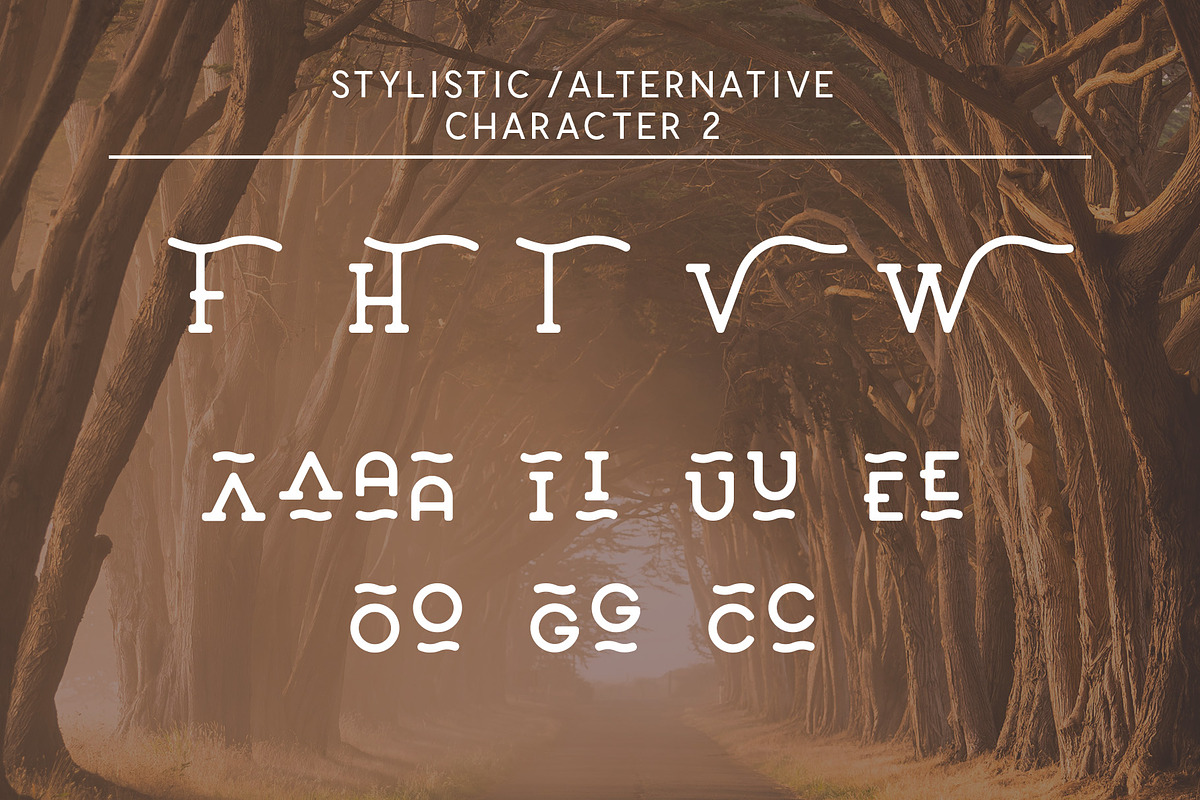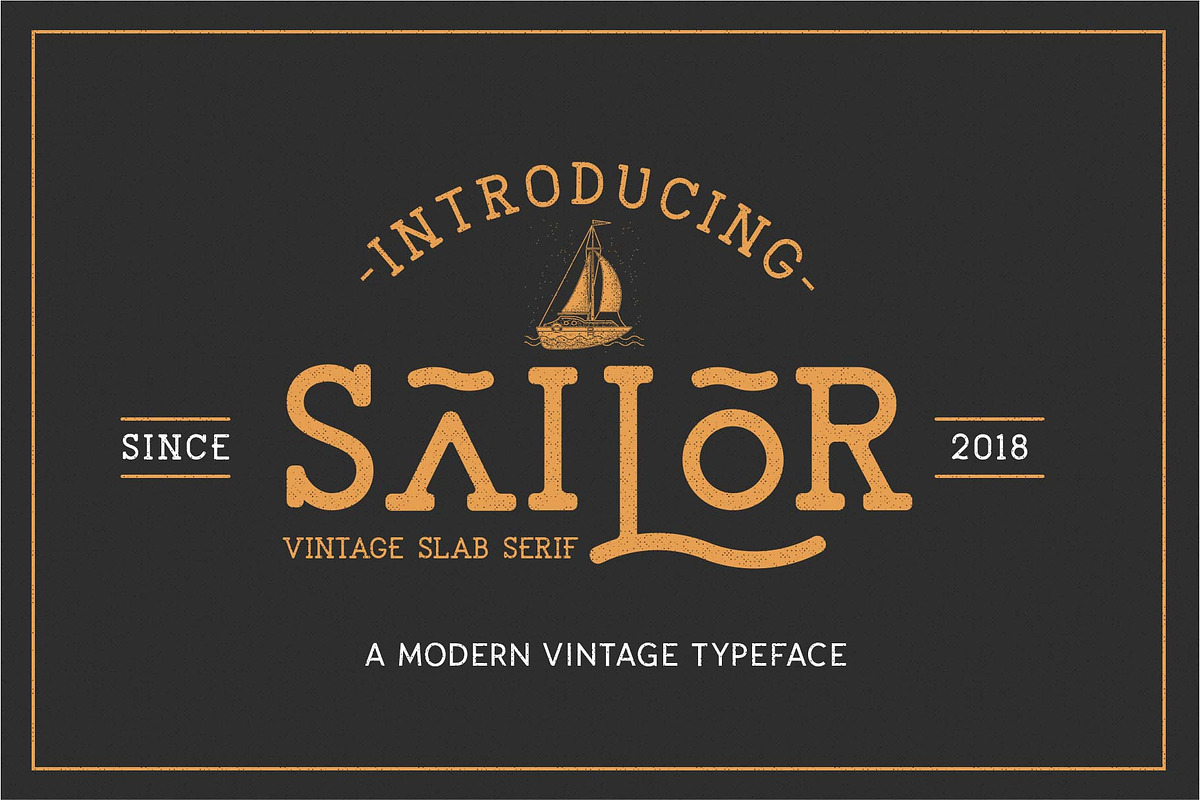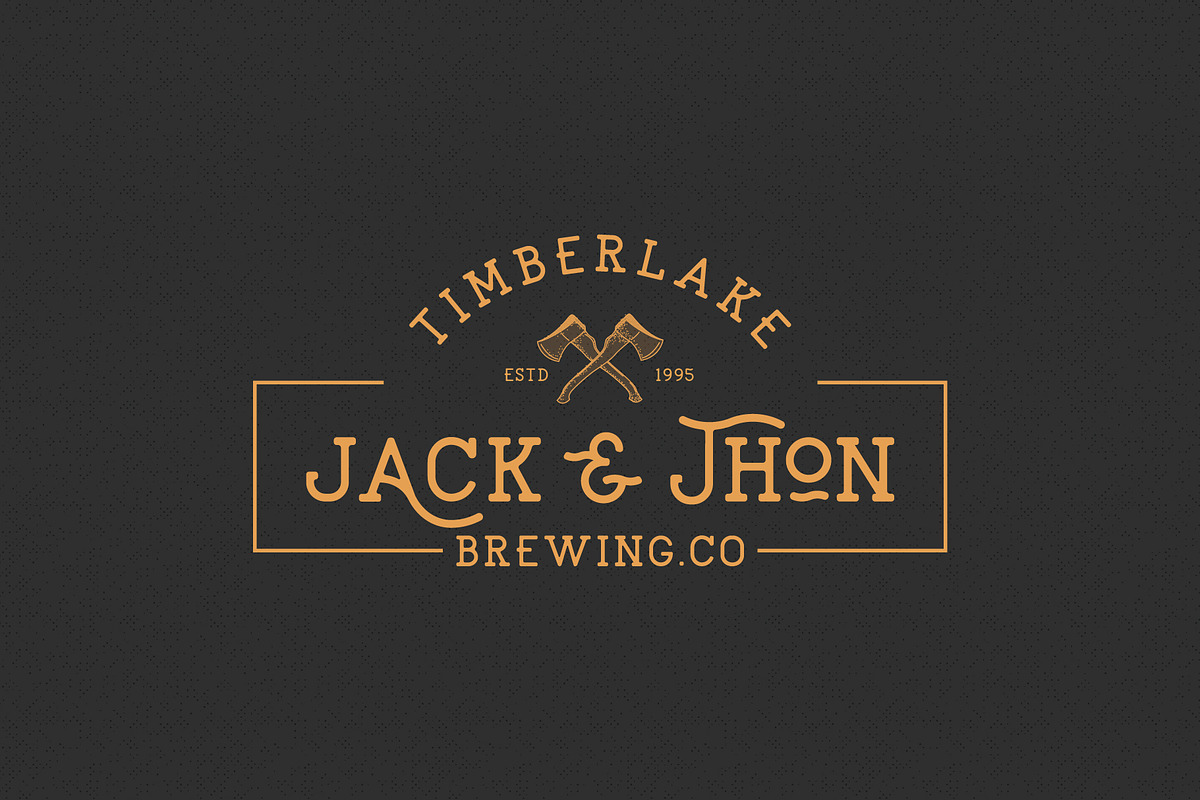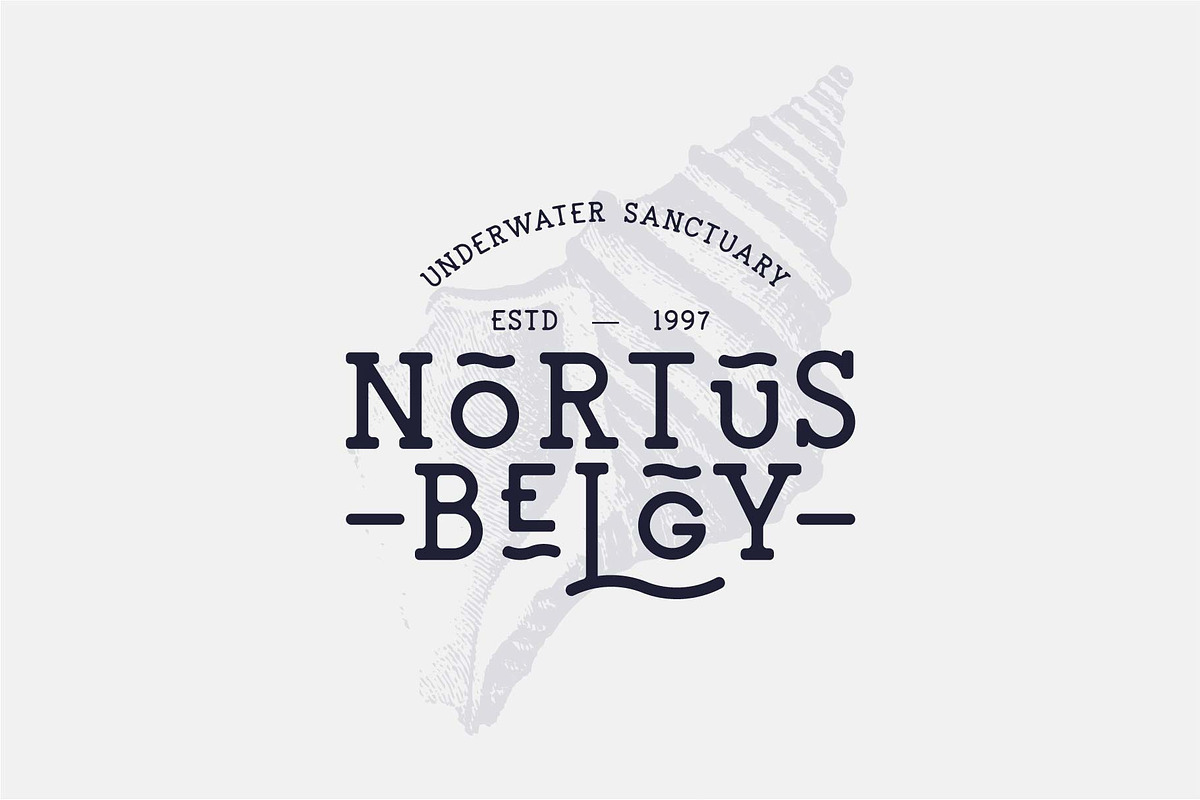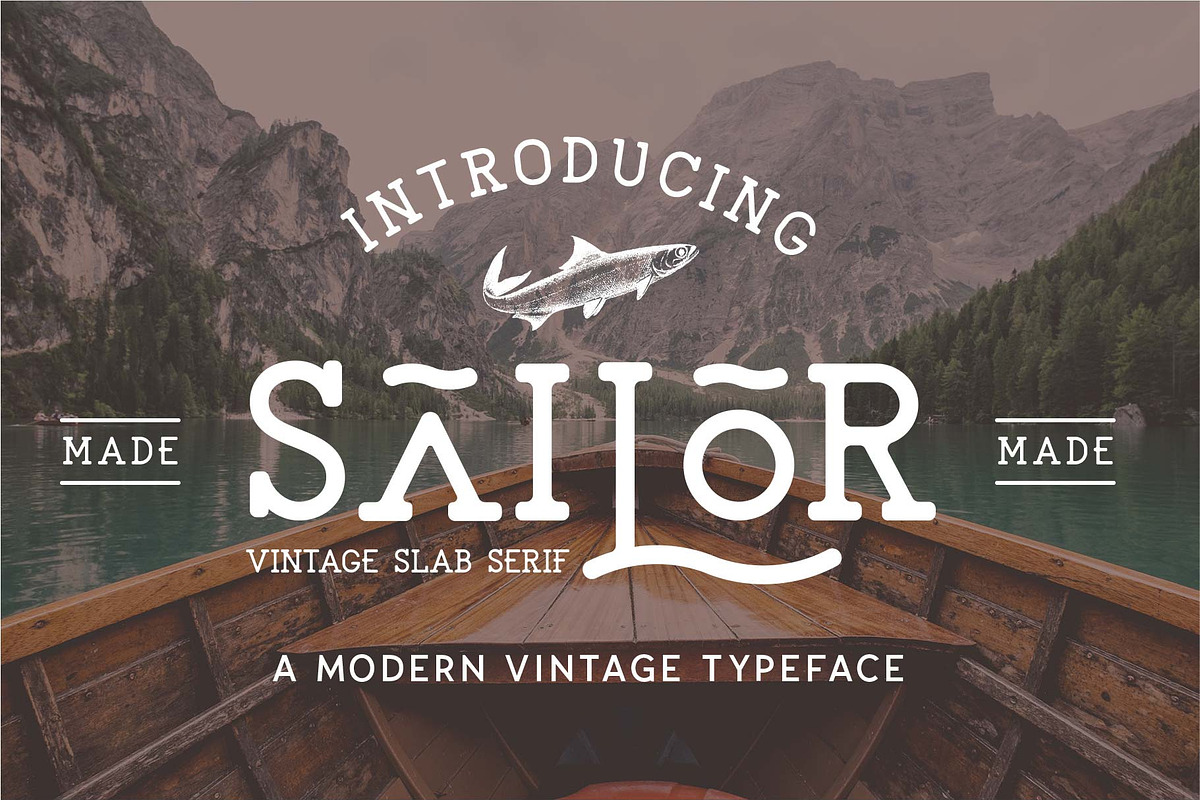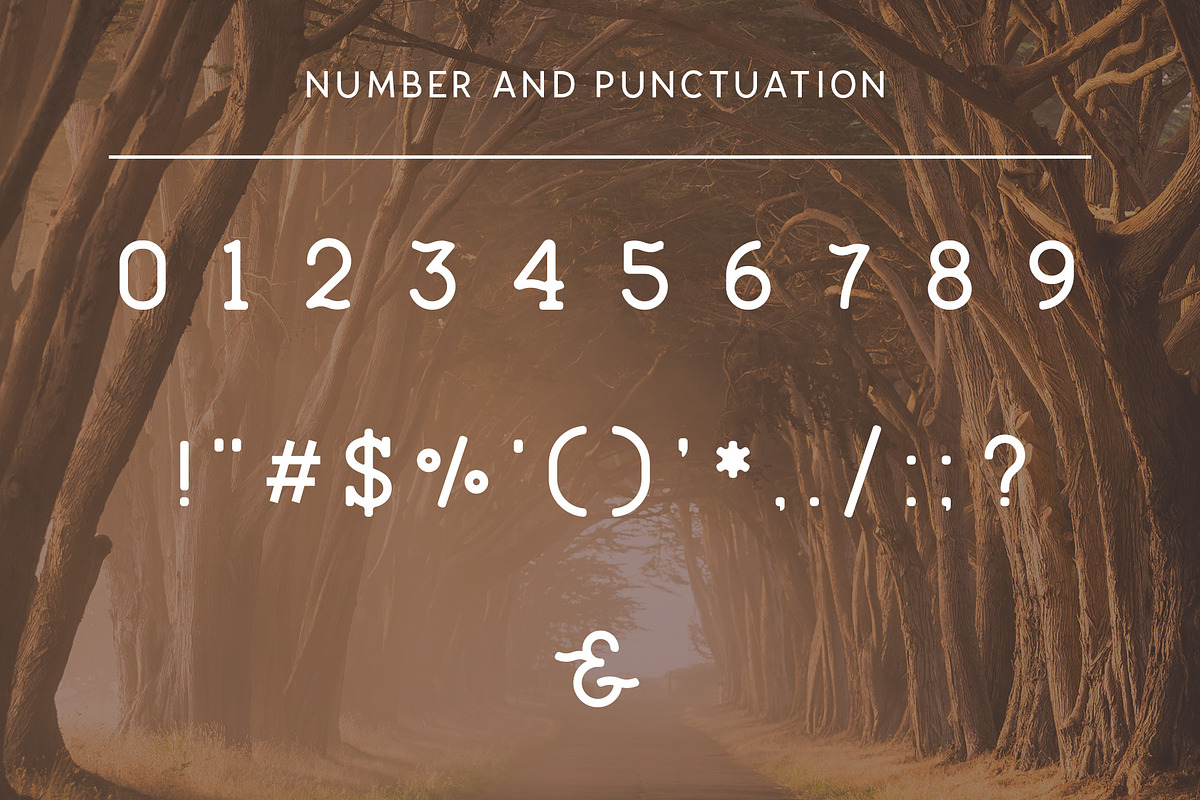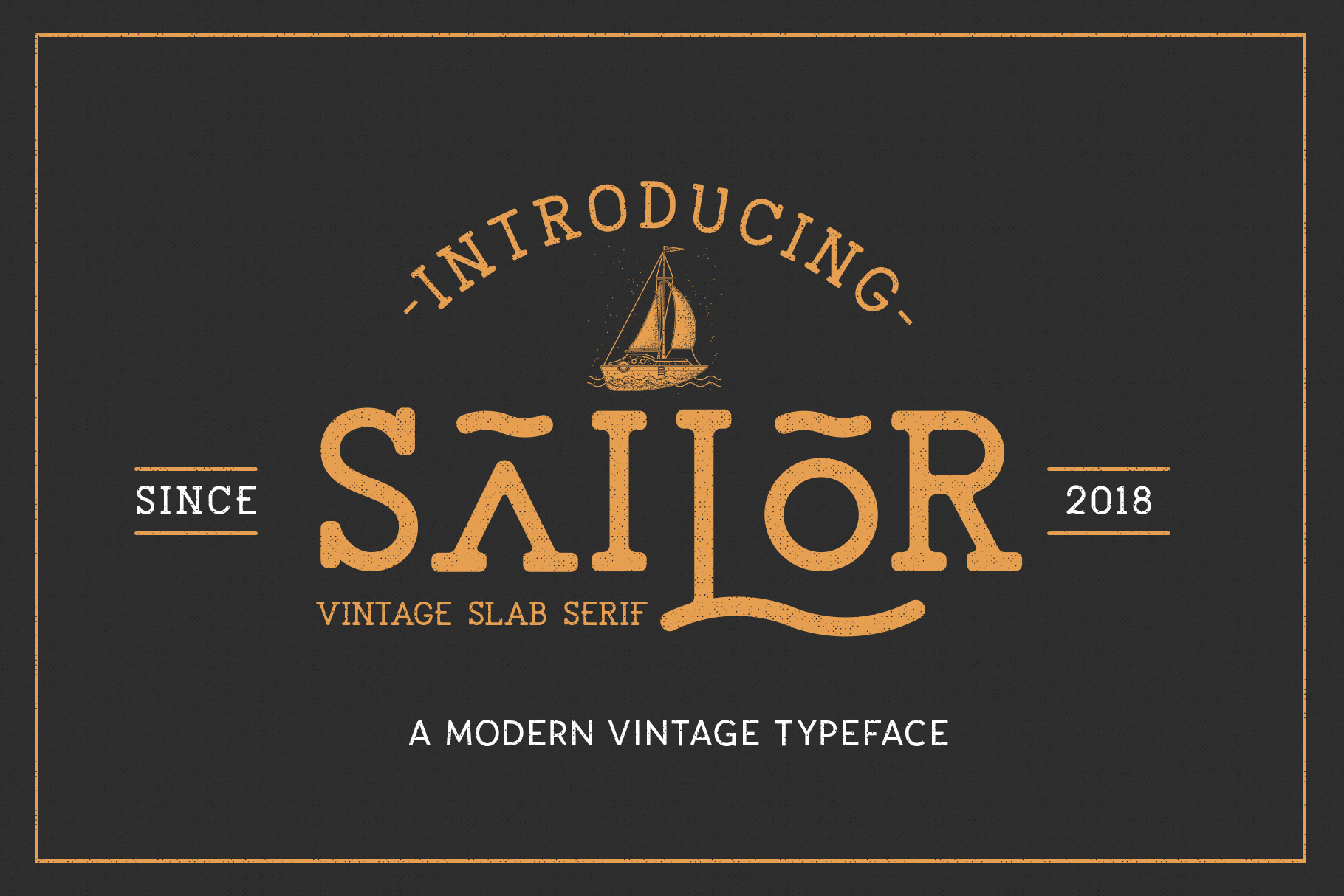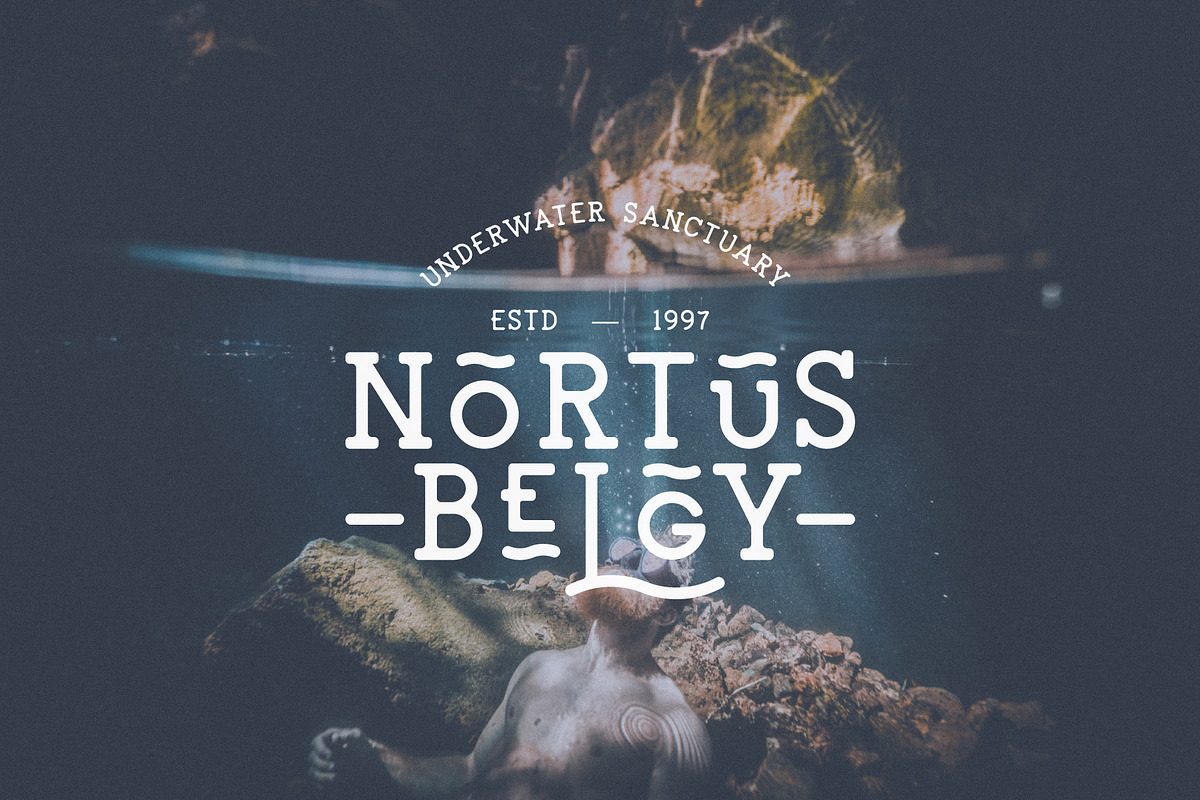
The Sailor Typeface
The Sailor Font Is a modern and simple vintage slab serif font, with smooth edges to simulate vintage printing. Perfect for vintage logo designs, headers and small amounts of text. It contains an uppercase alphabet with alternative character, numbers and symbols.
New update !! -
Now available in 4 Weights
- Thin
- Medium
- Bold